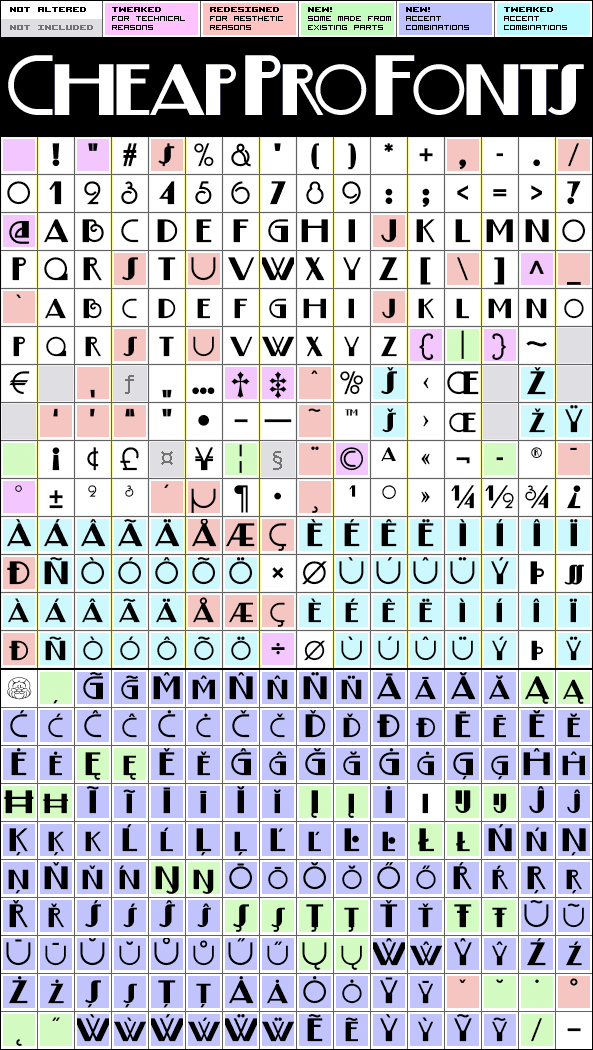
A typical Art Deco font. I have redesigned the uppercase "S" to mach the lowercase, tweaked a little here and there - and completely redesigned all the diacritics (which didn't really match the letter designs ;)
Boogie Nights NF Pro is a professionally reworked font that contains an extended character set for setting of text in 65 languages requiring more than the basic A-Z!